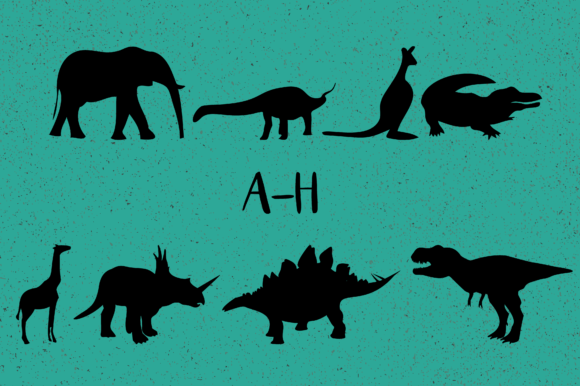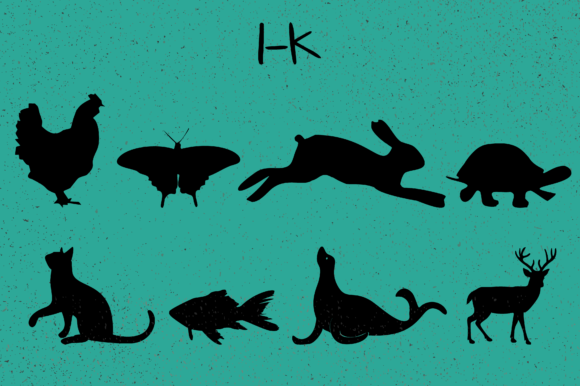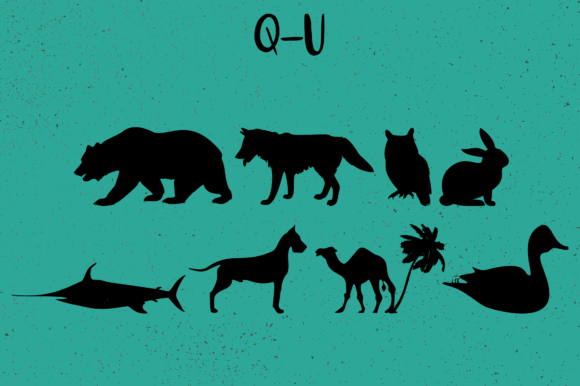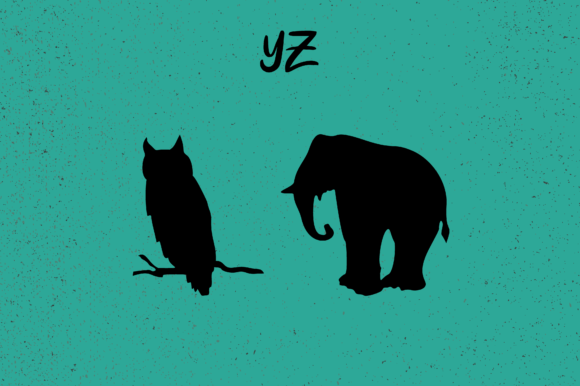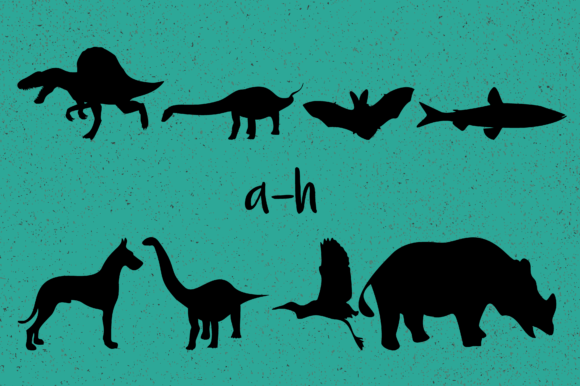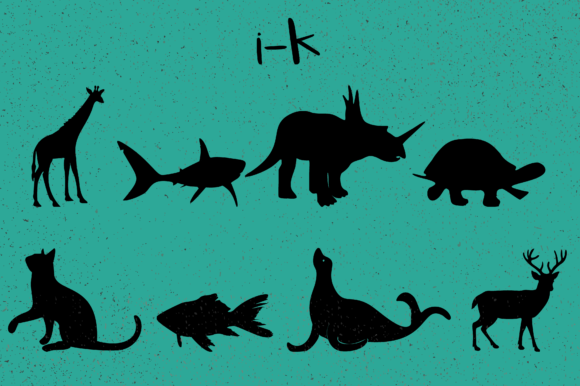
Unlock the Wild Side of Typography
As a designer, have you ever stared at a blank page, trying to conjure up the perfect visual to bring your idea to life? We’ve all been there – stuck in a creative rut, searching for that elusive spark that sets our imagination ablaze. For some of us, it’s the sound of a piano, the scent of freshly brewed coffee, or the sight of a majestic animal that gets those creative juices flowing.
Enter the Animals Silhouettes Font, a game-changing dingbats typeface that lets you generate up to 62 unique animals silhouettes by typing letters and numbers. This innovative tool is a treasure trove for designers, offering endless possibilities for creative expression and visual storytelling. With the Animals Silhouettes Font, the boundaries of typography are pushed, and the possibilities are endless.
Animals Silhouettes Font Key Features
- Unique Silhouette Designs: The font features a range of animal silhouettes, including cats, dogs, birds, and more, adding a creative touch to any design.
- Resolution: Supports high-resolution designs, making it suitable for print and digital applications.
- Customizable: Allows designers to customize the silhouettes by adjusting their size, color, and position, providing endless creative possibilities.
- Comprehensive Collection: Includes over 100 animal silhouettes, ensuring designers have a vast range of options to choose from.
Designer Review: Animals Silhouettes Font
Overall, I think the Animals Silhouettes Font is a cute and creative addition to any design project. ✨ The silhouettes of various animals are carefully crafted and look great in a variety of contexts. The font is well-suited for projects that need a playful, whimsical touch.
- The Animals Silhouettes Font works well for:
- Children’s books and educational materials ✨
- Marketing campaigns and advertisements targeting families and kids ✨
- Web design projects that need a lighthearted and approachable feel ✨
However, there are a few limitations to keep in mind: ⚠️ The font may not be suitable for formal or professional projects, as it can come across as too playful. Additionally, the silhouettes may not be as detailed or realistic as some designers may prefer.
In terms of overall impression, I think the Animals Silhouettes Font is a great choice for designers who want to add some personality and fun to their projects. While it may not be the best fit for every project, it’s a versatile and creative tool that can help designers stand out.
The Animals Silhouettes Font is perfect for:
- Children’s book illustrations and designs.
- Wildlife and conservation campaigns.
- Fun and playful social media graphics.